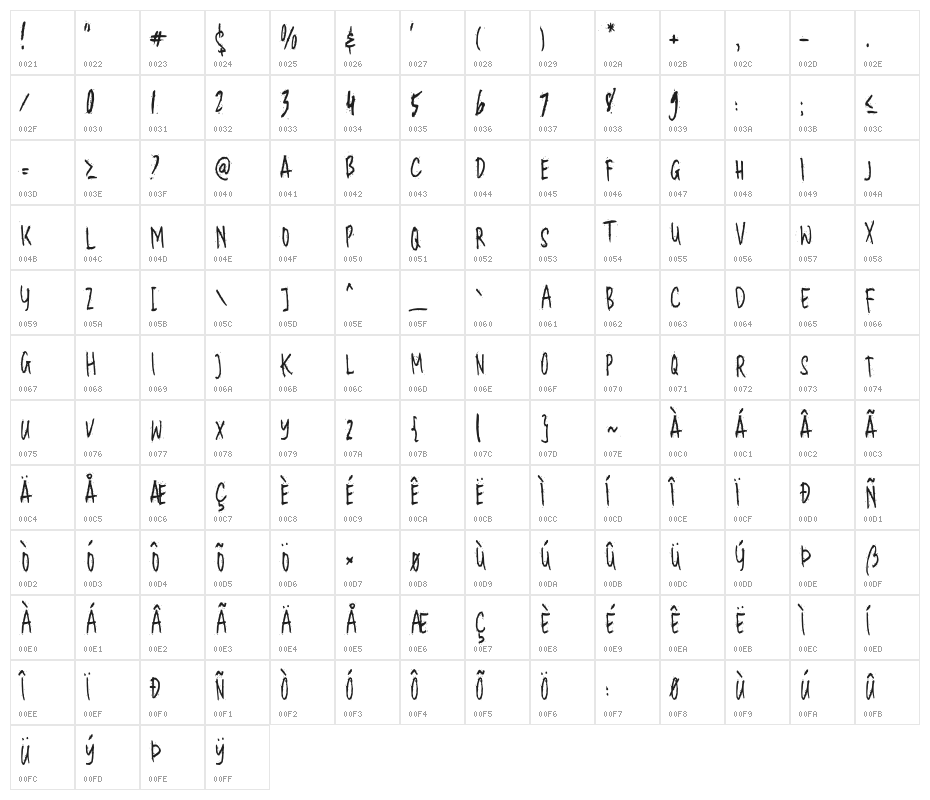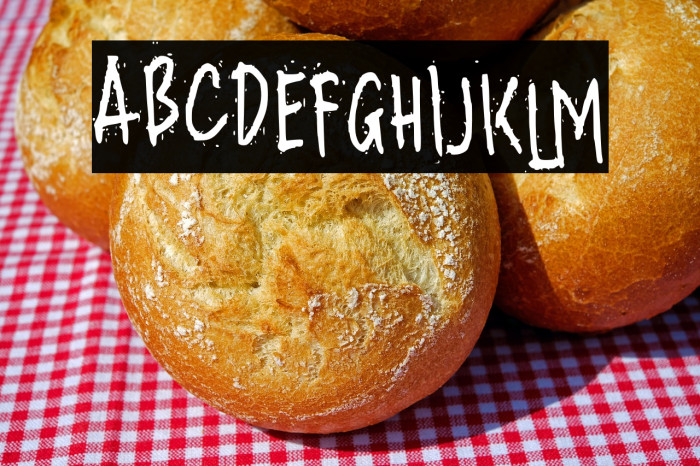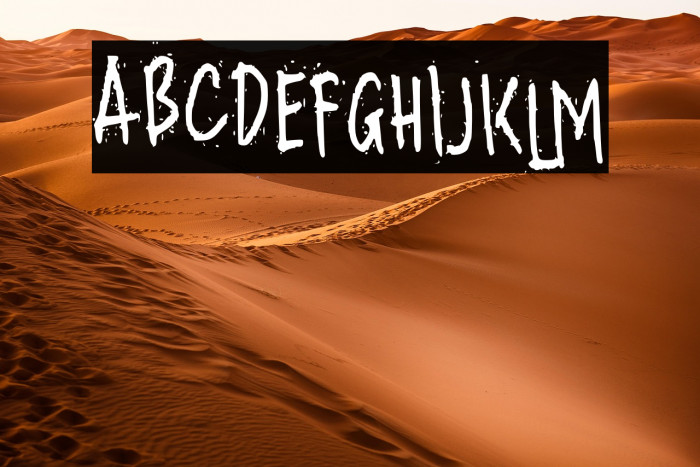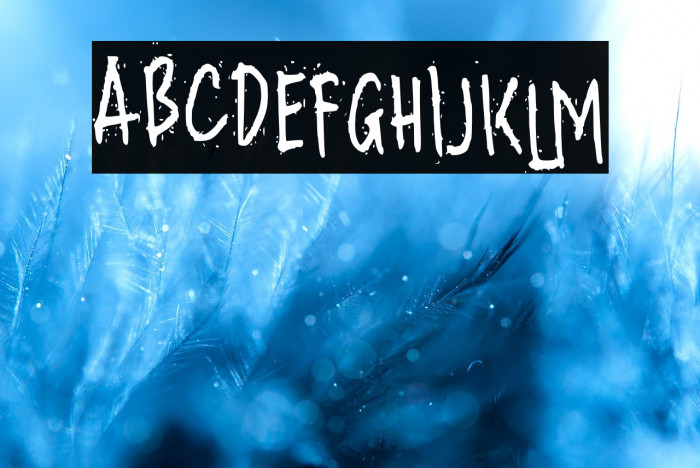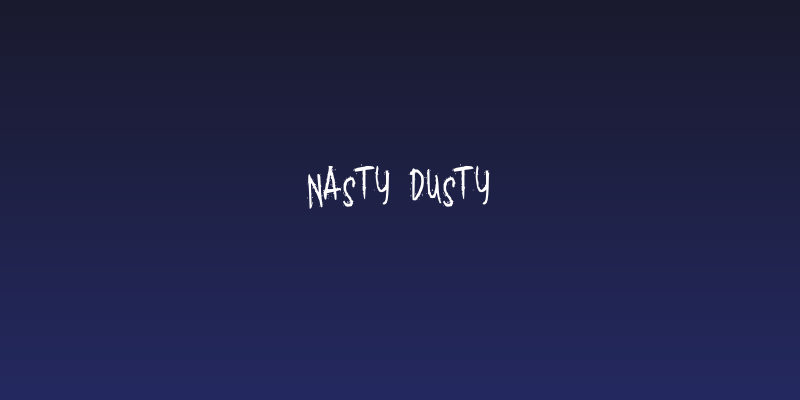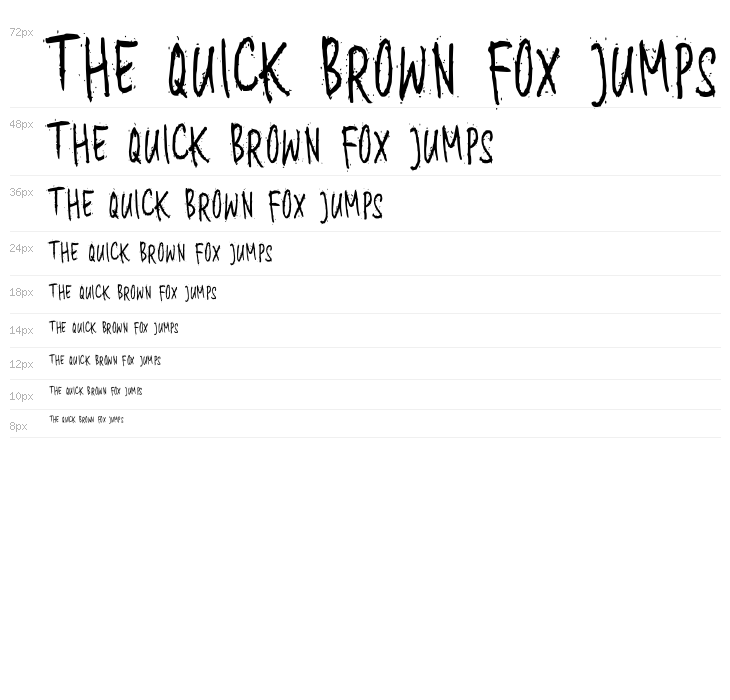
Nasty Dusty Font
Nasty Dusty Description
This font features a rugged, hand-drawn style with a distressed texture that gives it a gritty, urban feel. The characters are unevenly shaped, with rough edges and varying stroke widths, creating a dynamic and energetic appearance. The uppercase and lowercase letters maintain a consistent style, while the numbers and special characters follow the same distressed aesthetic. This font is ideal for projects that require a bold, edgy look, such as posters, album covers, or streetwear branding.
| Overall Style | Urban, Edgy, Distressed |
| Proposed Projects | Ideal for posters, album covers, streetwear branding, and edgy graphic designs. |